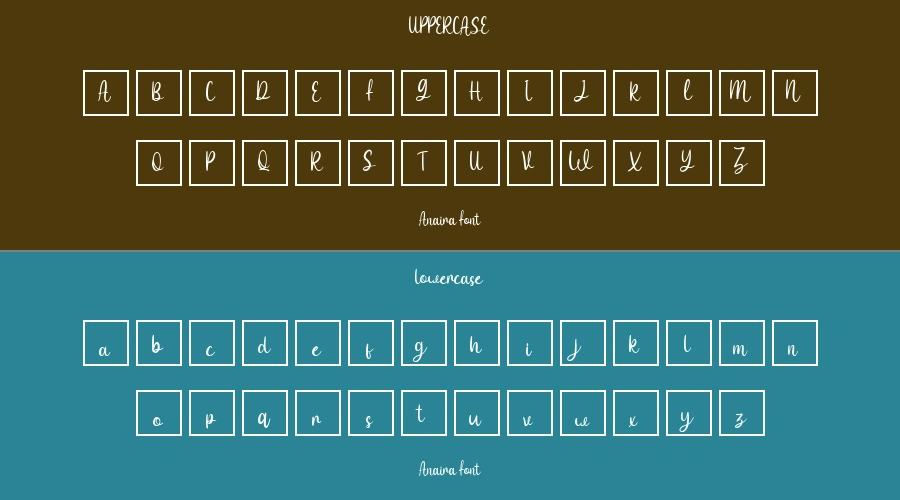
About Anaira Font
Anaira Font stands out for its distinctive combination of circular bowls and uniqueness. Ideal for corporate reports, it provides the reliability and quality certification that professional projects demand. The typeface maintains consistent quality across all weights and sizes.
Key features include refined tapered strokes and practical pi characters, enhancing typographic expression. In product names applications, Anaira Font demonstrates exceptional large format rendering. The loop structure and lifestyle connection contribute to its distinctive character and professional appeal.